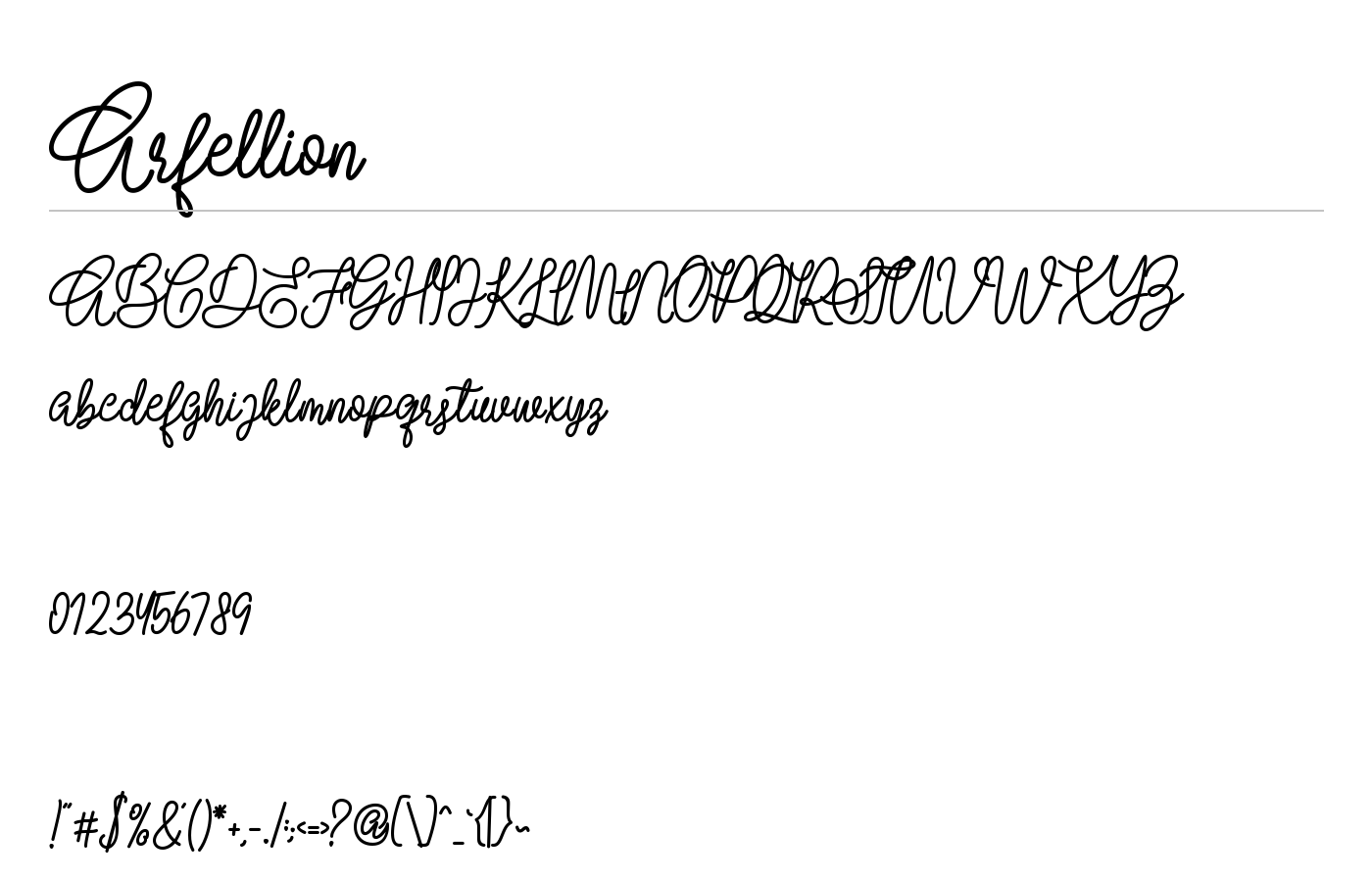
Arfellion is a delicate and elegant script font with a smooth, flowing style that mimics natural handwriting. Its thin strokes and connected letterforms give it a graceful, personal touch, making it perfect for invitations, branding, and any design that calls for a refined, feminine feel. This font works beautifully in decorative headlines or logos where a sophisticated, handcrafted look is desired.
Arfellion Font
About Arfellion Font
| Font family | Arfellion Font |
| Designer | Riyadh Rahman |